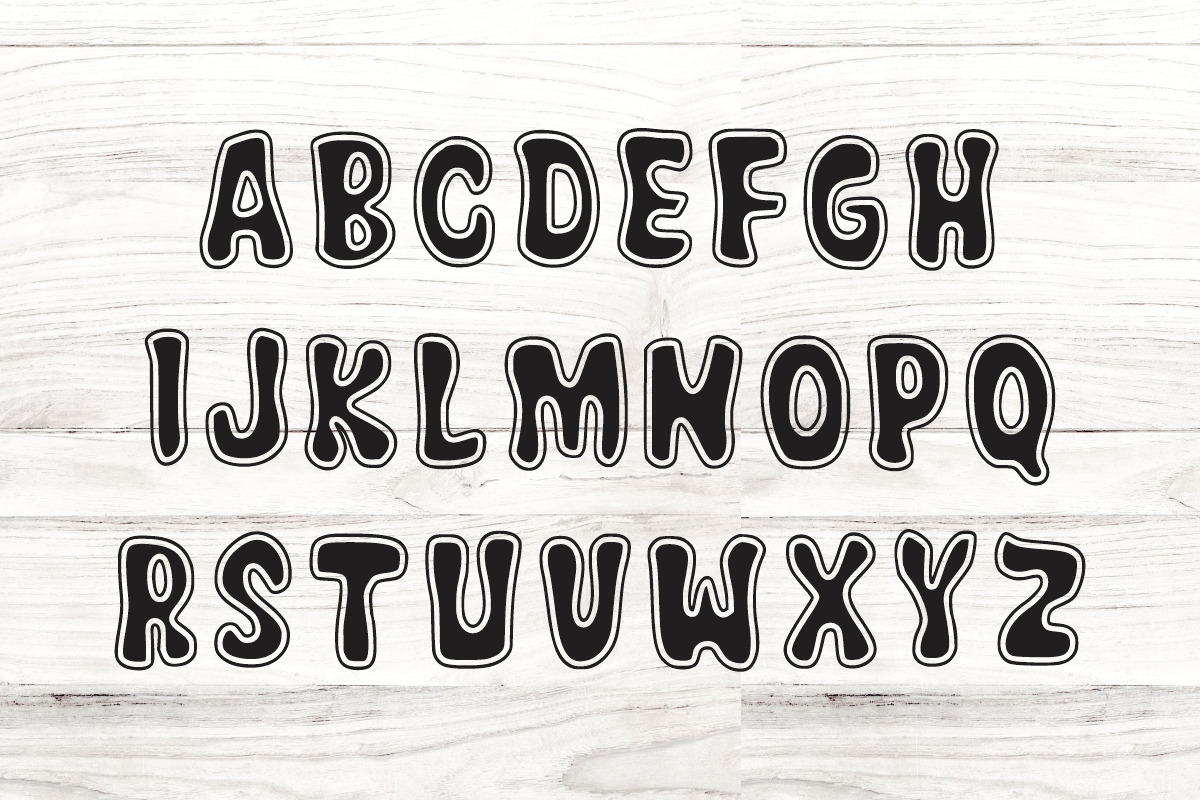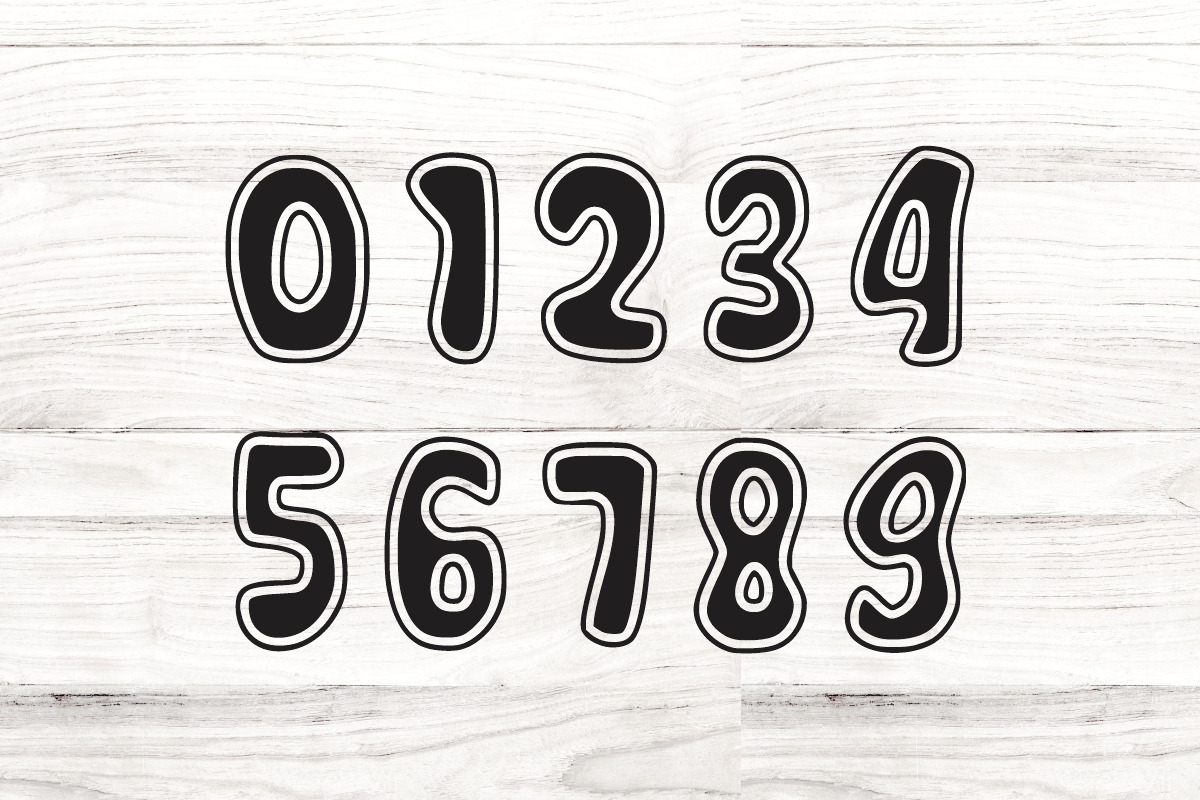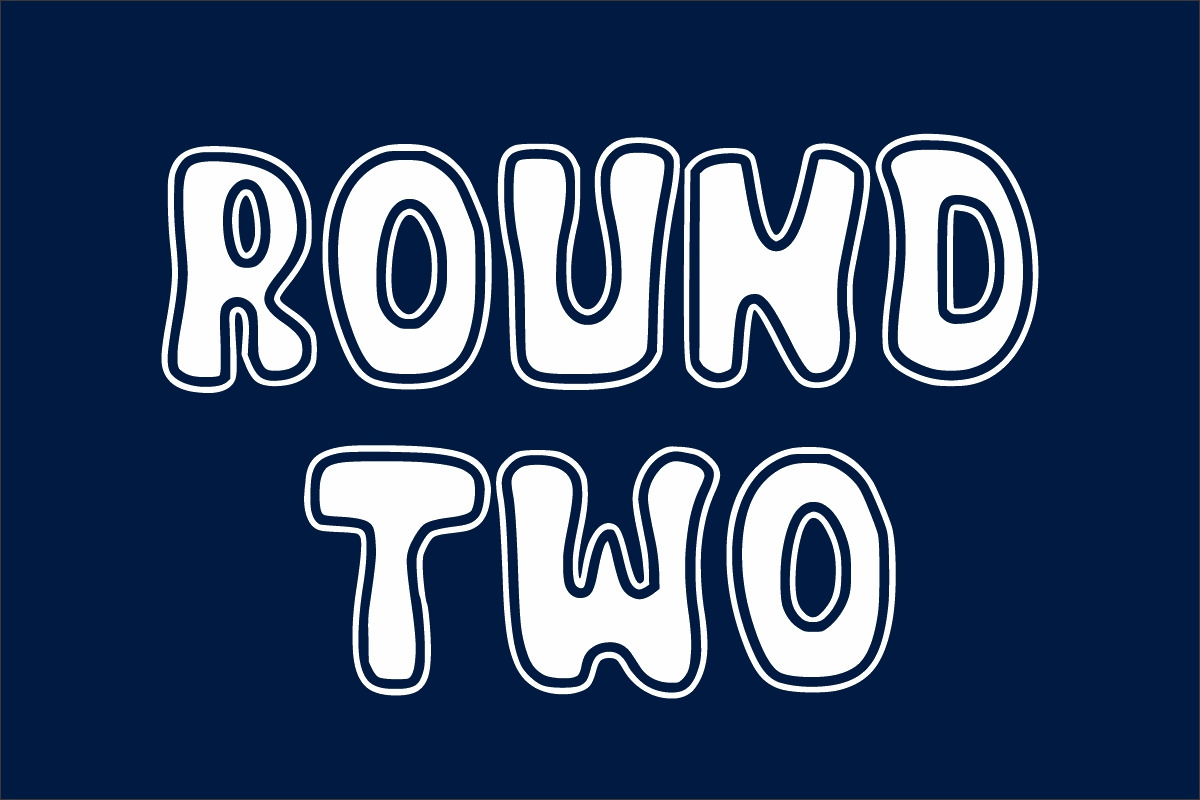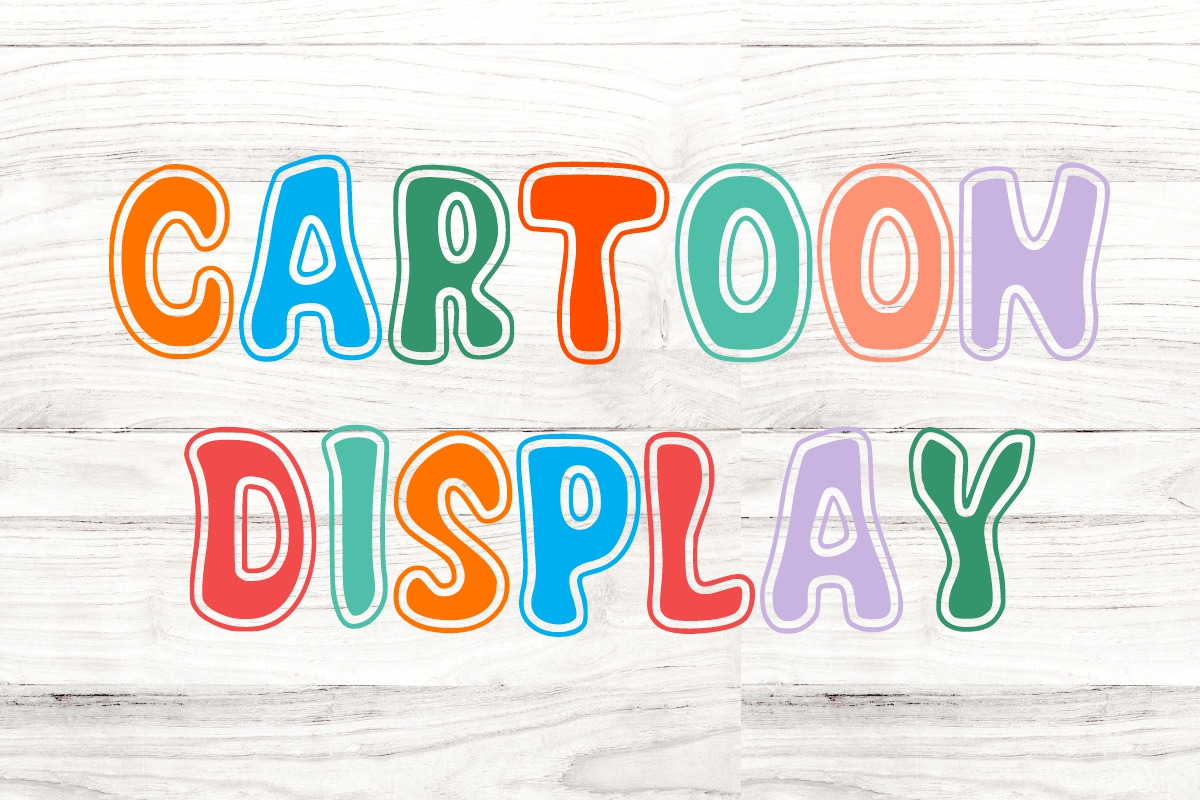
Black Bubble
Black Bubble is a bold and playful outline display font that radiates a fun and creative vibe. With its thick, bubbly letters outlined in black, it creates a striking balance between boldness and light-hearted charm, perfect for eye-catching titles, logos, and creative designs. The rounded edges and whimsical curves make it ideal for children’s projects, party invitations, merchandise, or any playful branding that needs a vibrant touch. This versatile typeface blends retro comic-style energy with modern aesthetics, making it stand out in both digital and print applications while remaining easy to read in various sizes.